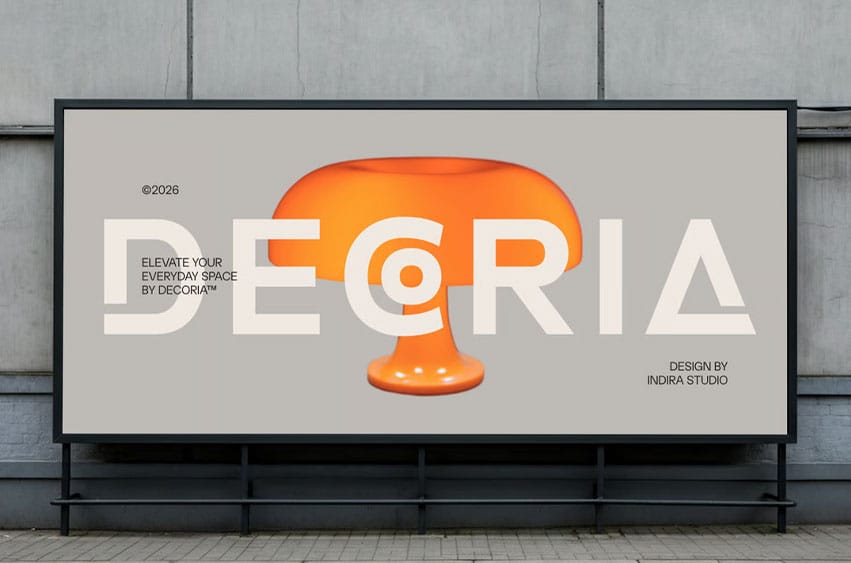
Decoria Font is a modern and elegant display font crafted to elevate any logo and brand identity with a clean and minimal aesthetic. Built with geometric precision and bold character forms, this font delivers a strong visual presence while maintaining a refined and professional tone. Perfect for fashion, corporate, and contemporary branding projects, Decoria blends simplicity with sophistication, making it ideal for designers who seek a versatile and timeless font solution.
With its sleek structure and balanced proportions, Decoria fonts are designed to enhance intro visuals, editorial layouts, and high-end brand applications. The combination of minimal shapes and bold styling ensures clarity across various uses, from digital interfaces to print media. Whether you’re building a modern logo, crafting a clean corporate identity, or creating a standout display composition, Decoria offers the perfect harmony between elegance and functionality.